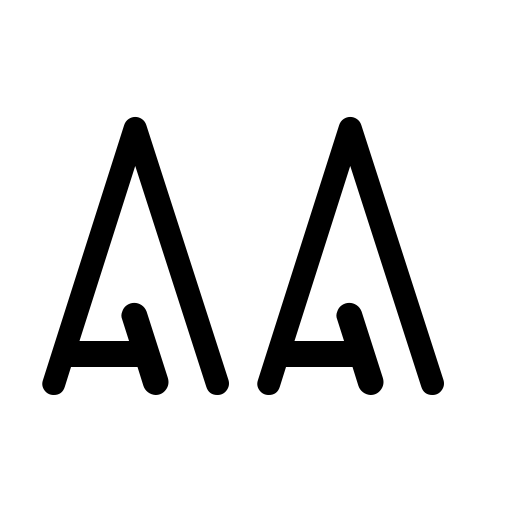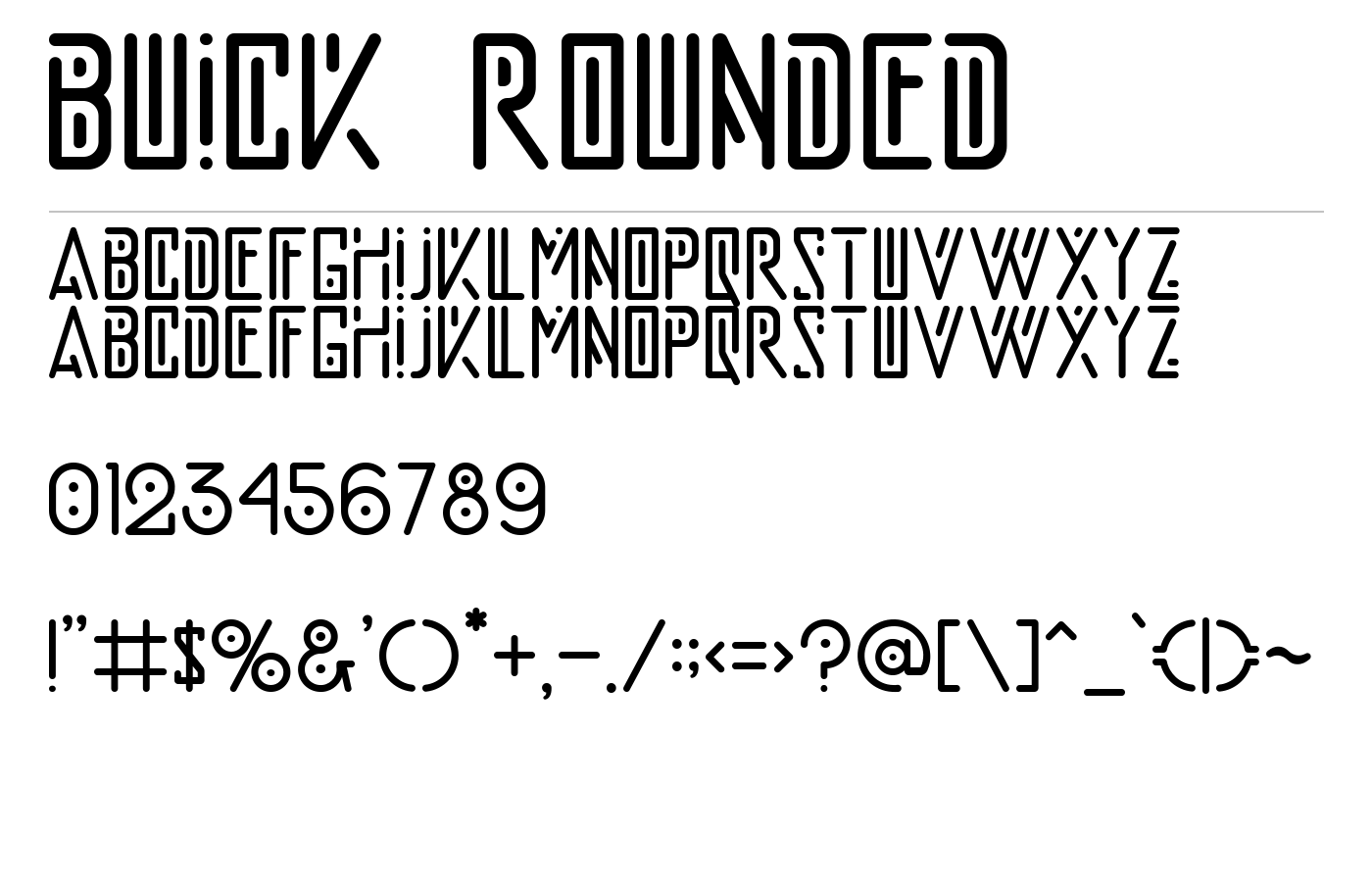
Buick Rounded is a modern, geometric sans serif font with distinct rounded terminals and a playful, almost tech-inspired charm. Its narrow width and consistent stroke weight give it a clean, futuristic look while the rounded edges soften the overall feel, making it ideal for branding, headlines, and digital interfaces that want to convey creativity and approachability. This font stands out with its unique letterforms and quirky details, perfect for projects seeking a contemporary yet friendly vibe.
buick rounded Font